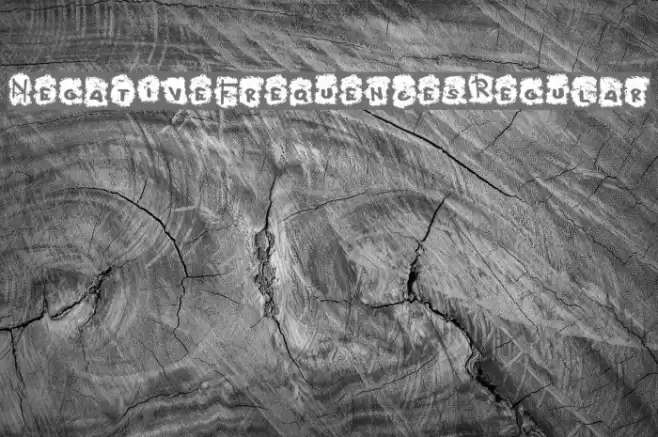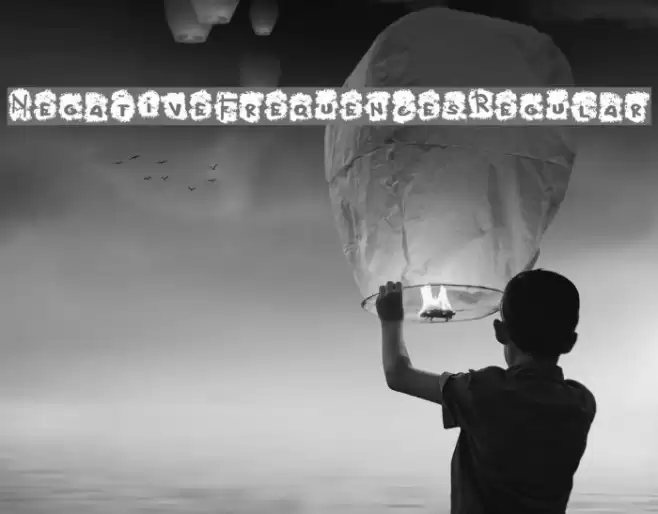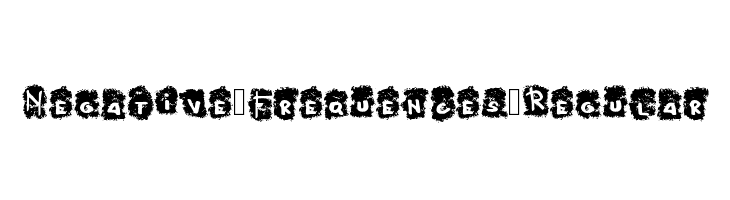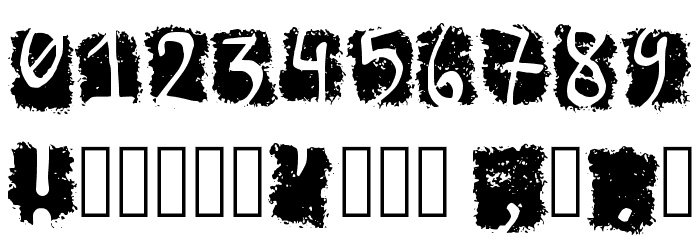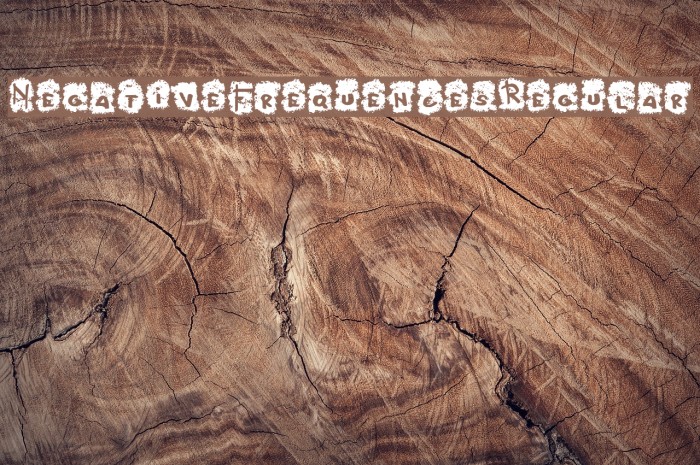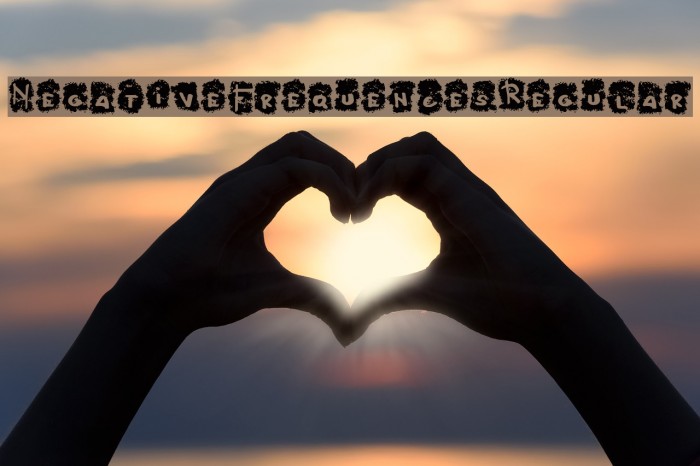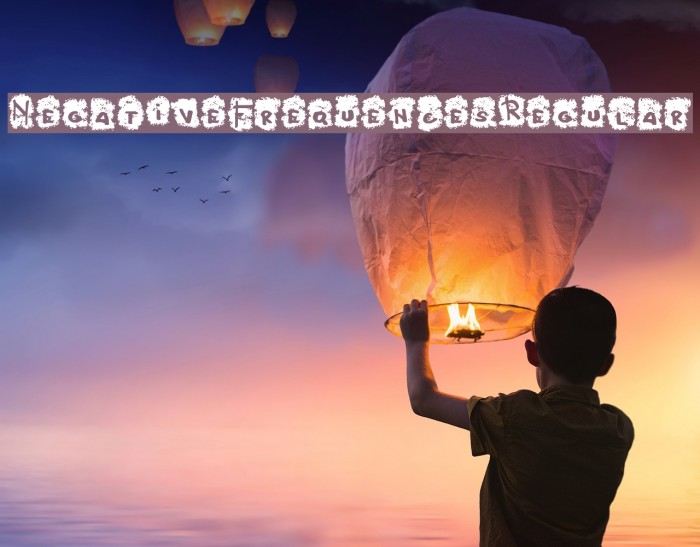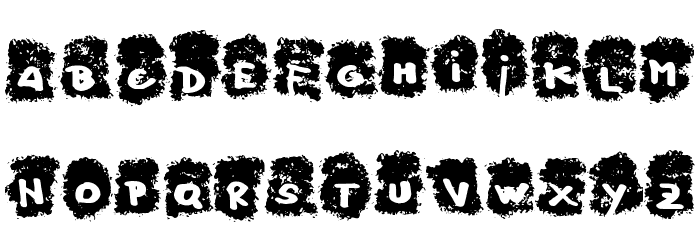
Negative_Frequences_Regular Font
Negative_Frequences_Regular Description
This font features a grunge, distressed style with each character appearing as if it has been splattered with ink or paint. The letters are bold and irregular, with rough edges and a textured appearance that gives them a chaotic and edgy feel. The uppercase and lowercase letters maintain this rugged aesthetic, while the numbers and special characters follow suit, ensuring a cohesive look across all glyphs. The font's unique style makes it stand out, ideal for projects that require a bold statement or an artistic touch.
A grunge, distressed font with bold, textured characters from Uncategorized fonts.
- Proposed Projects: Ideal for album covers, posters, streetwear branding, or any project needing a bold, artistic statement.